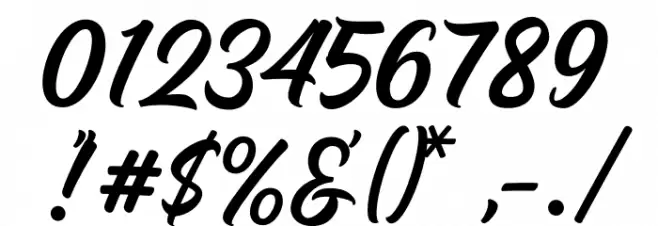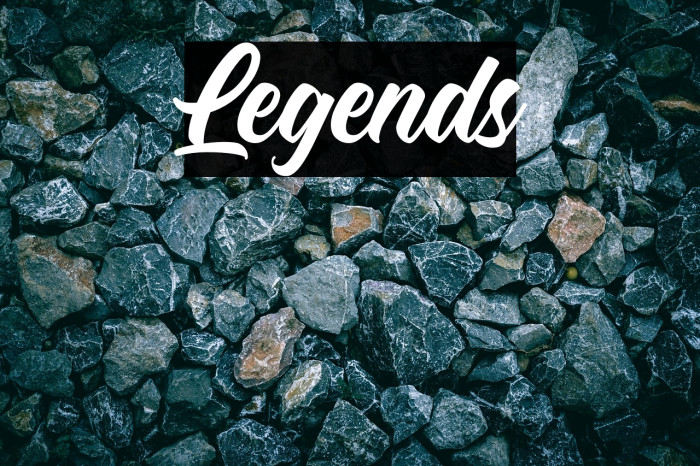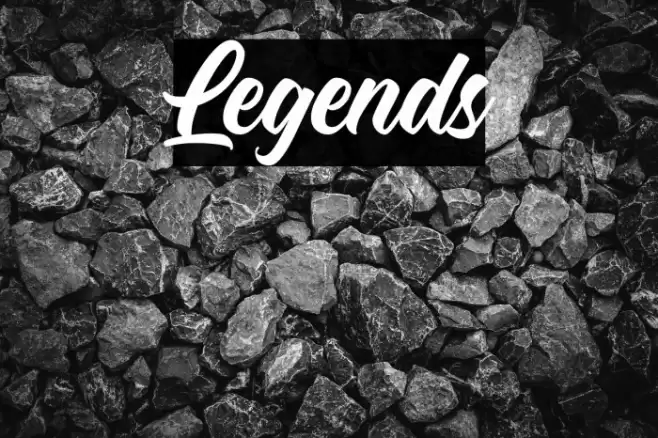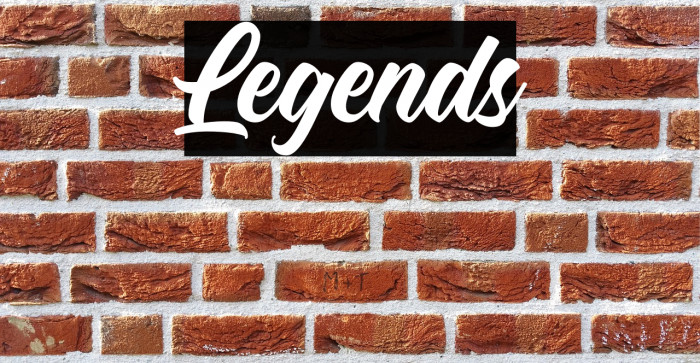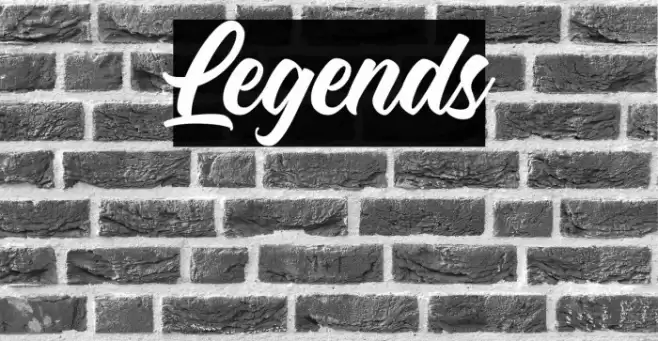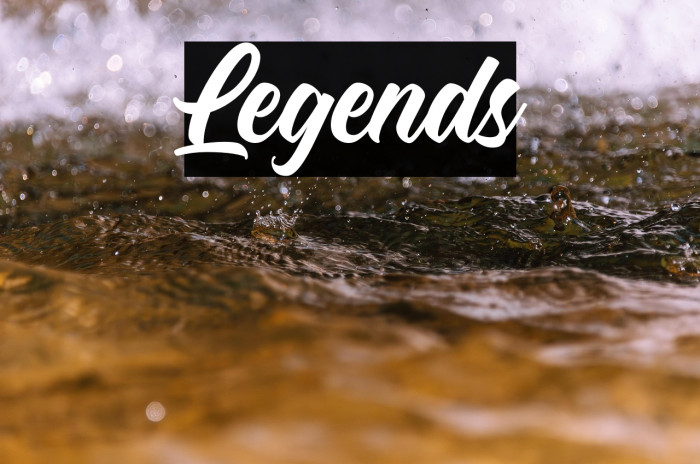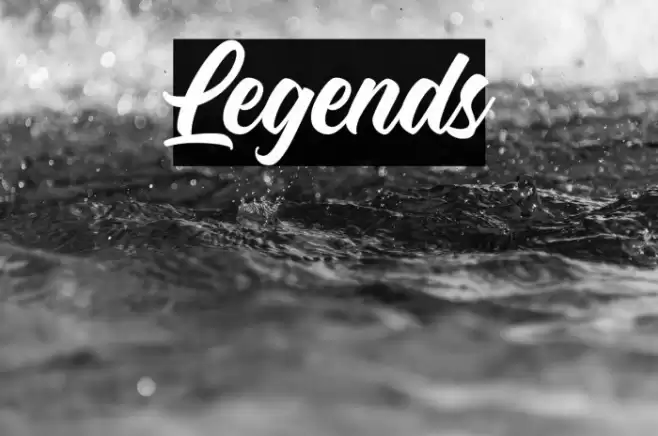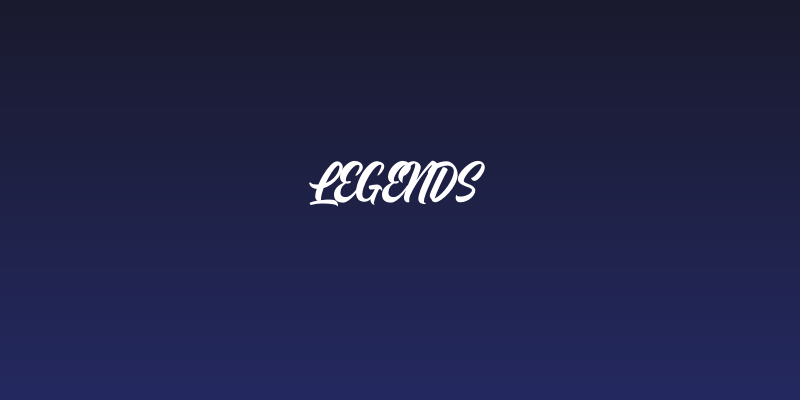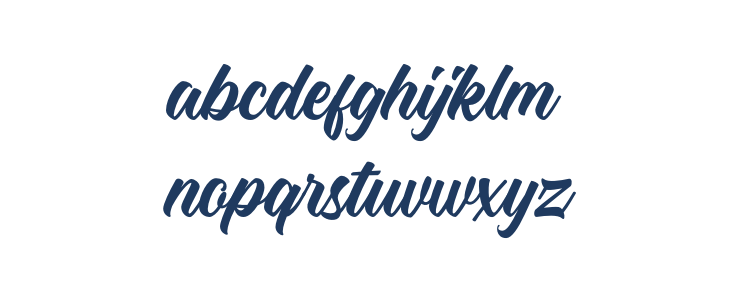
Legends Font
Legends Description
This font features a bold, flowing script style that exudes elegance and dynamism. The letters are interconnected with smooth, sweeping curves, giving it a sense of movement and fluidity. The uppercase characters are particularly striking, with their tall, dramatic forms, while the lowercase letters maintain a consistent style with slightly more subtle curves. The numerals are clear and distinct, matching the overall aesthetic with their rounded, flowing shapes. Special characters are well-integrated, maintaining the same bold and expressive style. This font is perfect for creating a strong visual impact, combining both readability and artistic flair.